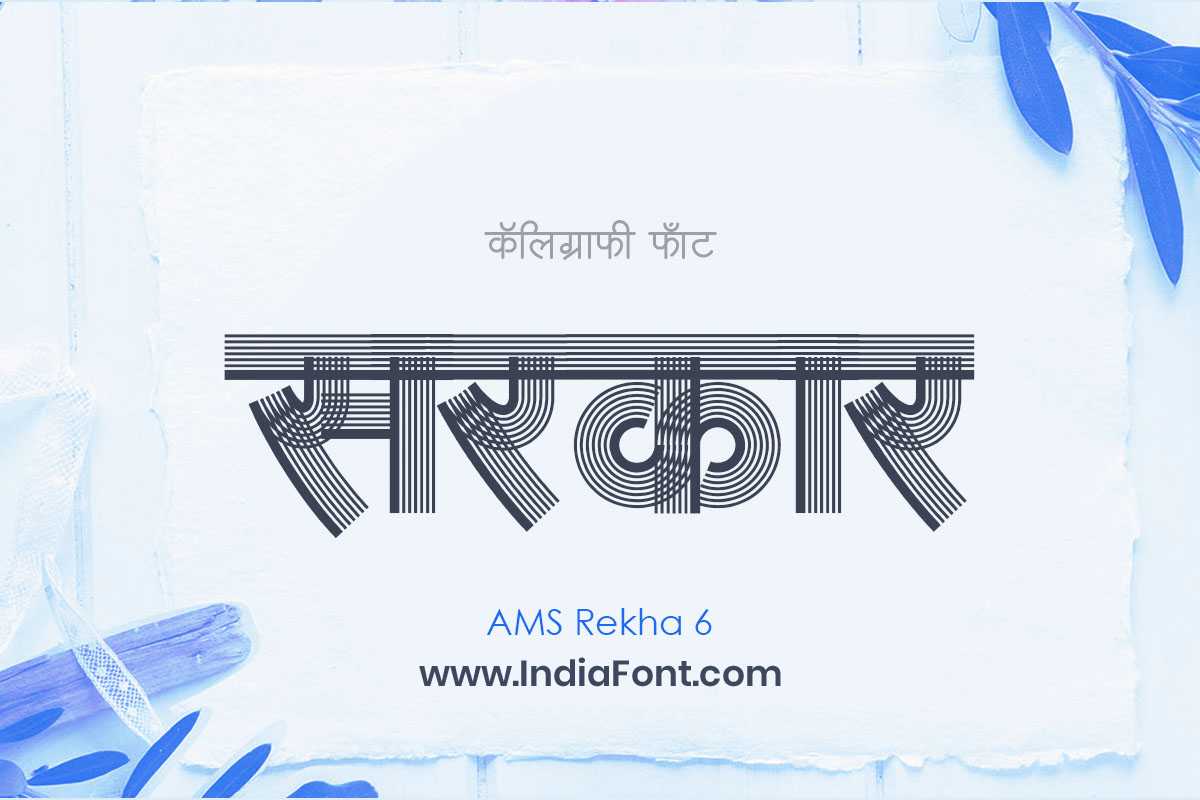
AMS Rekha 6
Indulge in the elegance of AMS Rekha 6, a decorative font that exudes beauty and grace. Whether you're searching for stylish Hindi fonts, decorative fonts that make a statement, or fonts offering free font download options, AMS Rekha 6 is the perfect choice.
About AMS Rekha 6 Font
Indulge in the elegance of AMS Rekha 6, a decorative font that exudes beauty and grace. Whether you're searching for stylish Hindi fonts, decorative fonts that make a statement, or fonts offering free font download options, AMS Rekha 6 is the perfect choice. This decorative font combines elegance with functionality, making it perfect for various design applications.
AMS Rekha 6 is a professionally crafted decorative typeface that brings clarity and style to your projects. Designed with attention to detail, it supports hindi and marathi characters flawlessly.
Whether you're working on wedding-materials, headers-titles, logos, or other creative projects, AMS Rekha 6 delivers consistent performance across both digital and print media. This carefully designed typeface ensures readability and visual appeal in all your design work.
Why Choose AMS Rekha 6?
AMS Rekha 6 excels in various design scenarios. Here are the most suitable applications:
About AMS Rekha 6 Typography Style
AMS Rekha 6 is a professionally crafted decorative font that exemplifies modern Hindi typography design. This free font is perfect for designers seeking professional branding and logo design projects.
Available in 1 weight and supporting hindi, marathi scripts, AMS Rekha 6 offers exceptional versatility for both digital and print media. Whether you're working on wedding-materials, headers-titles, logos, this carefully designed typeface ensures consistent quality and professional results across all your typography projects.